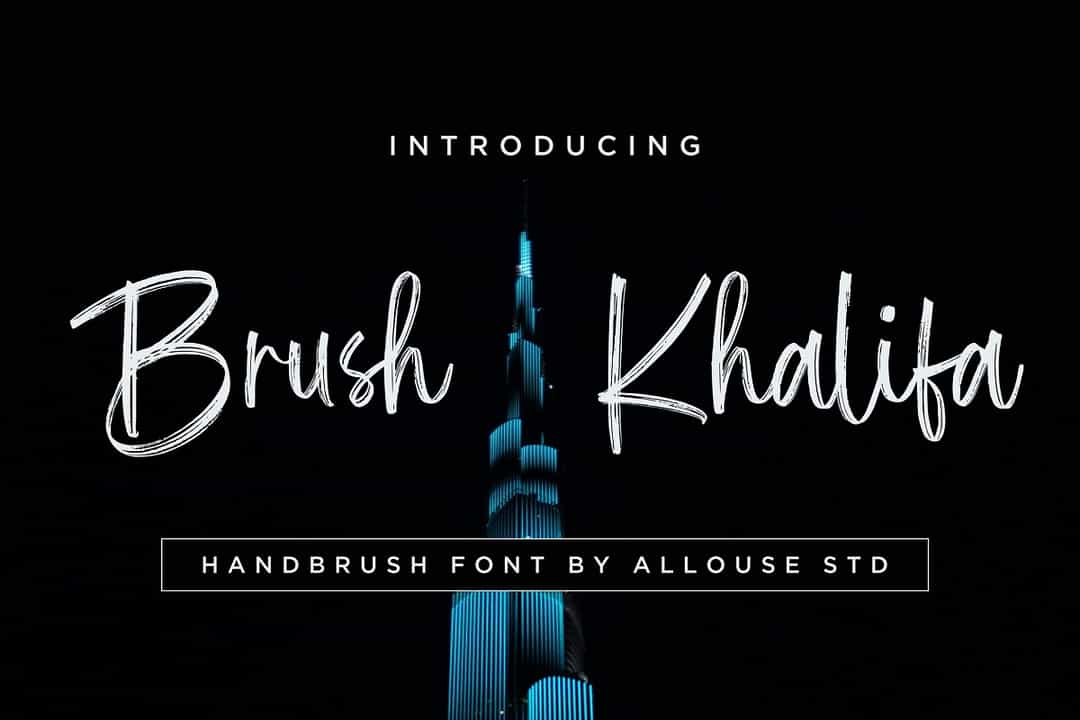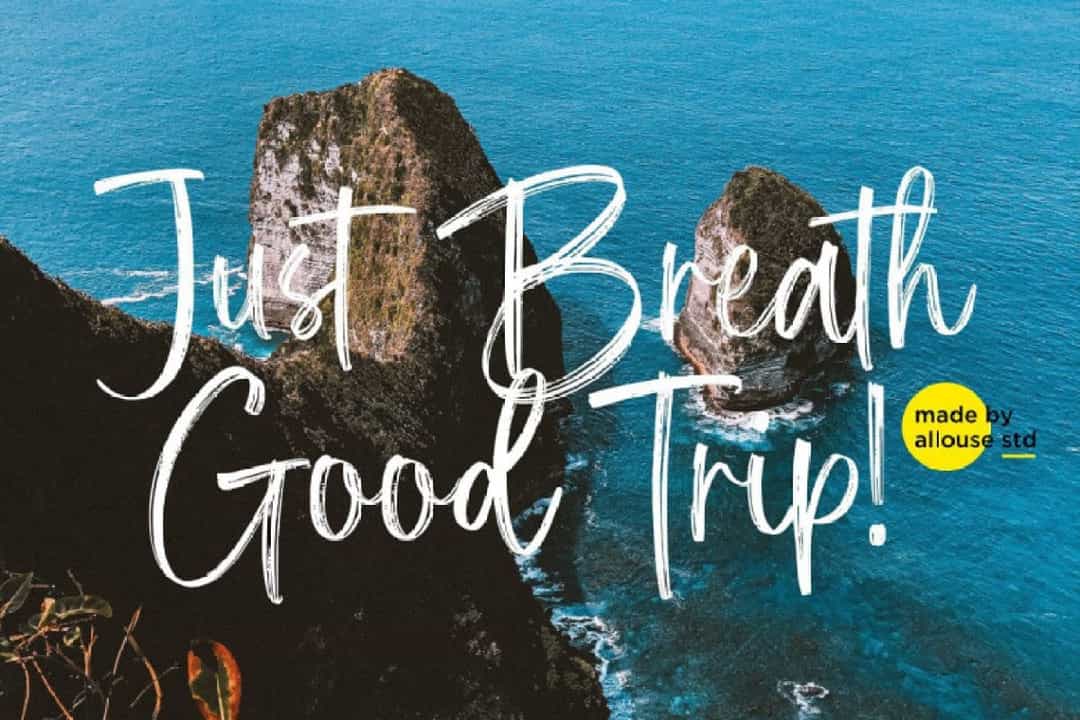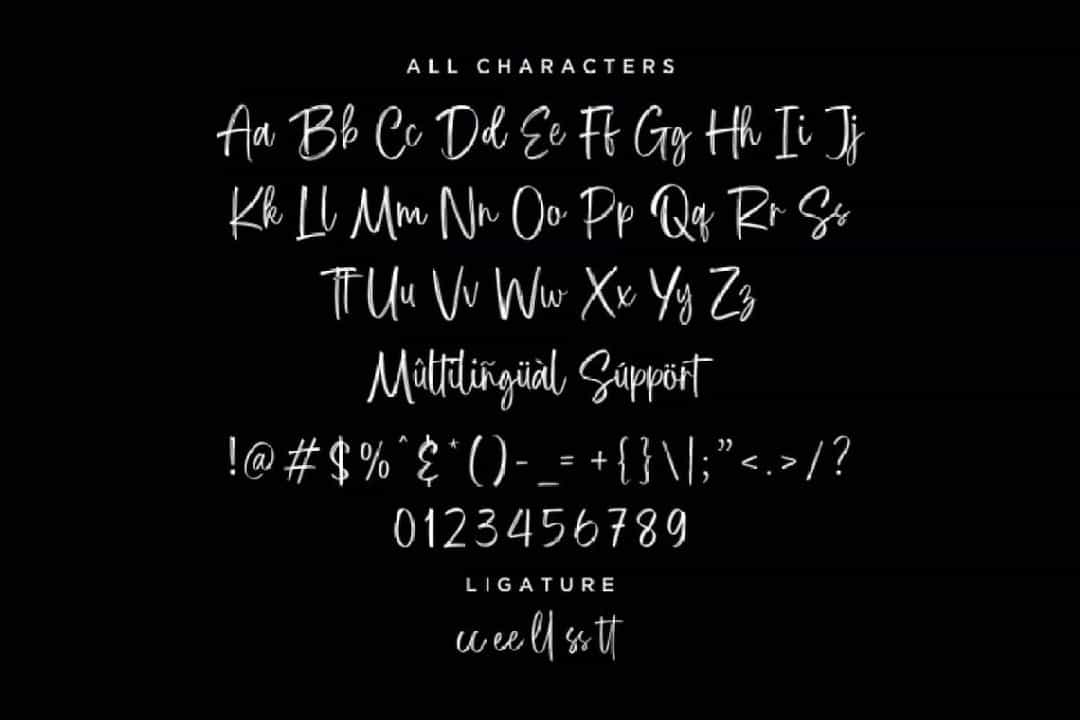
Brush Khalifa is an elegant and fashionable brush script typeface. No matter the topic of discussion, Brush Khalifa makes any type of work more attractive – be it packaging products, branding projects magazines wedding social media or simply communicating words over an unattractive background.